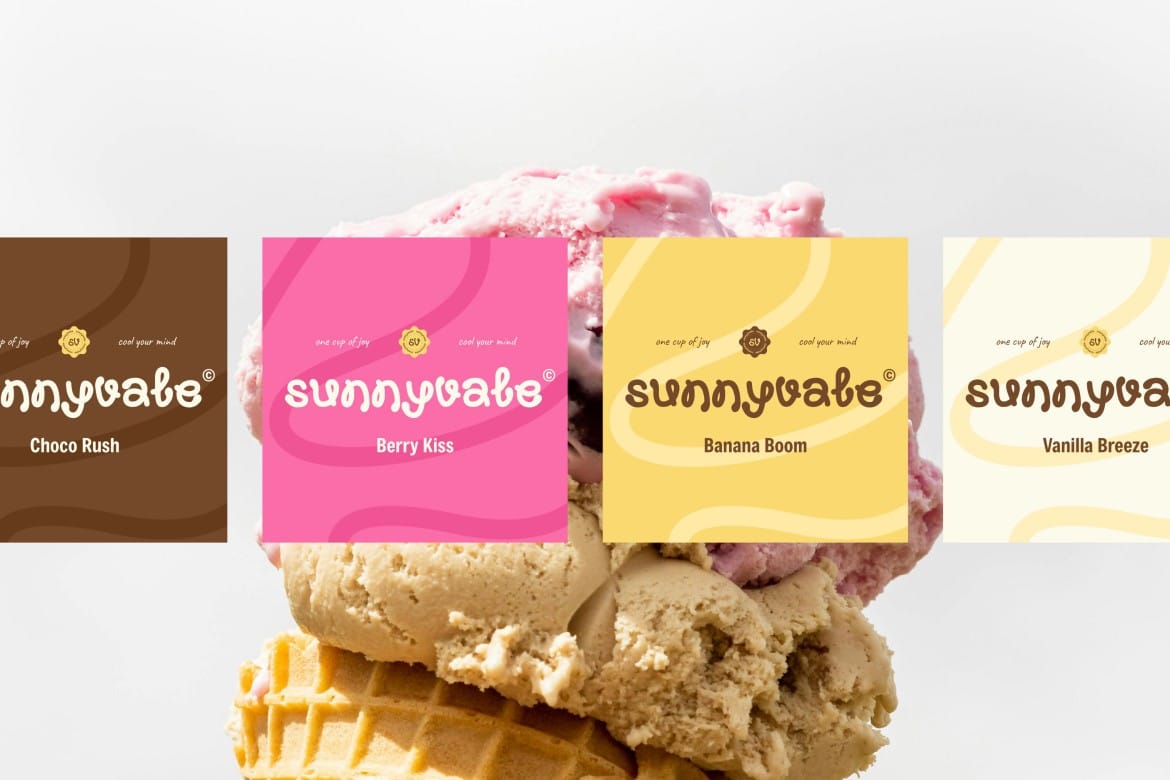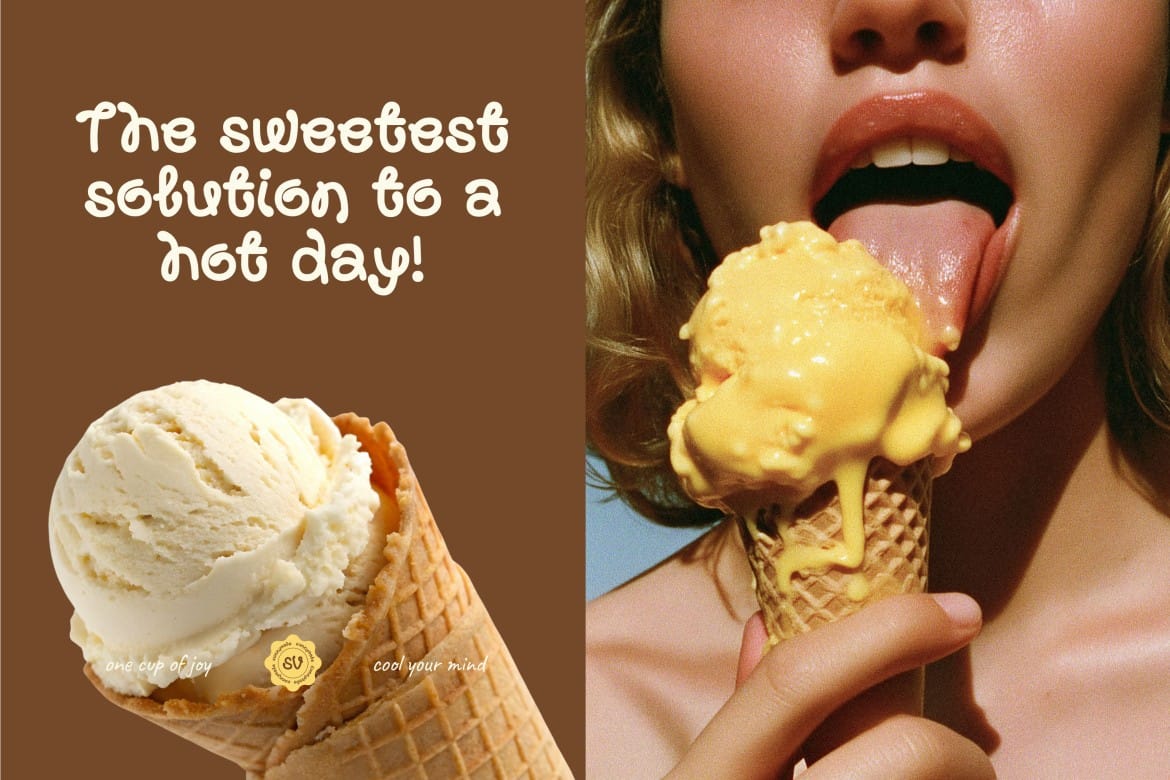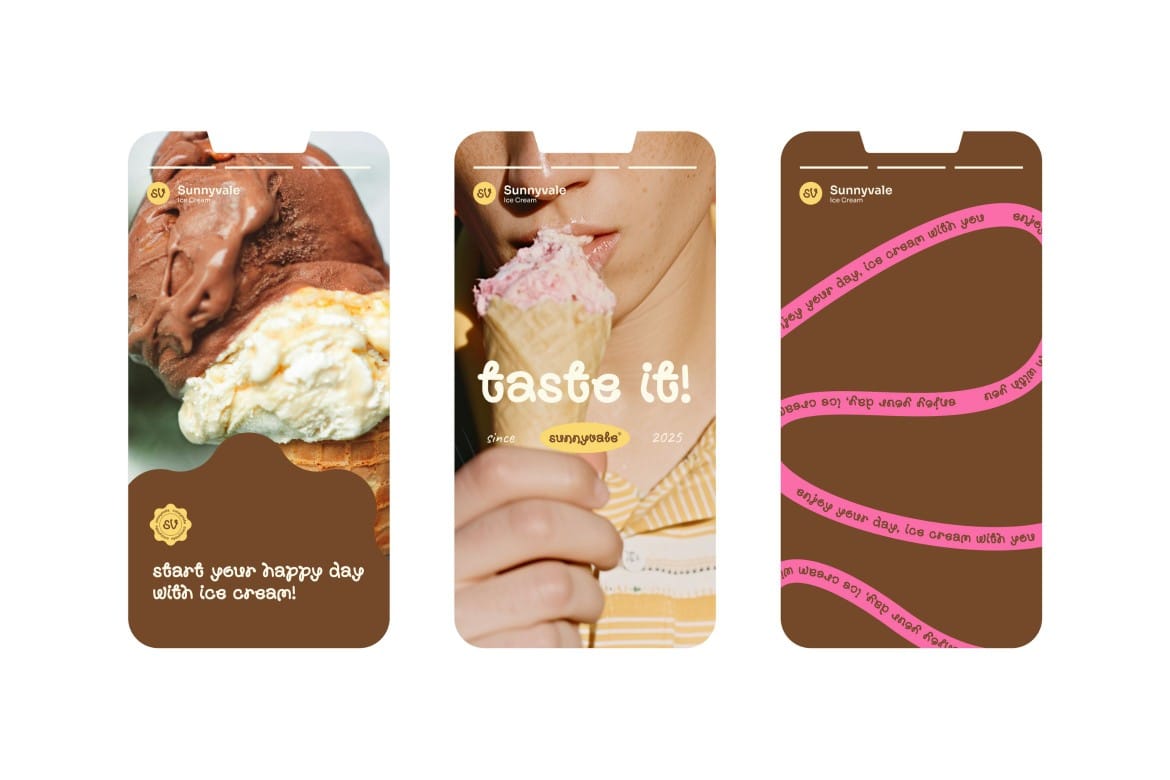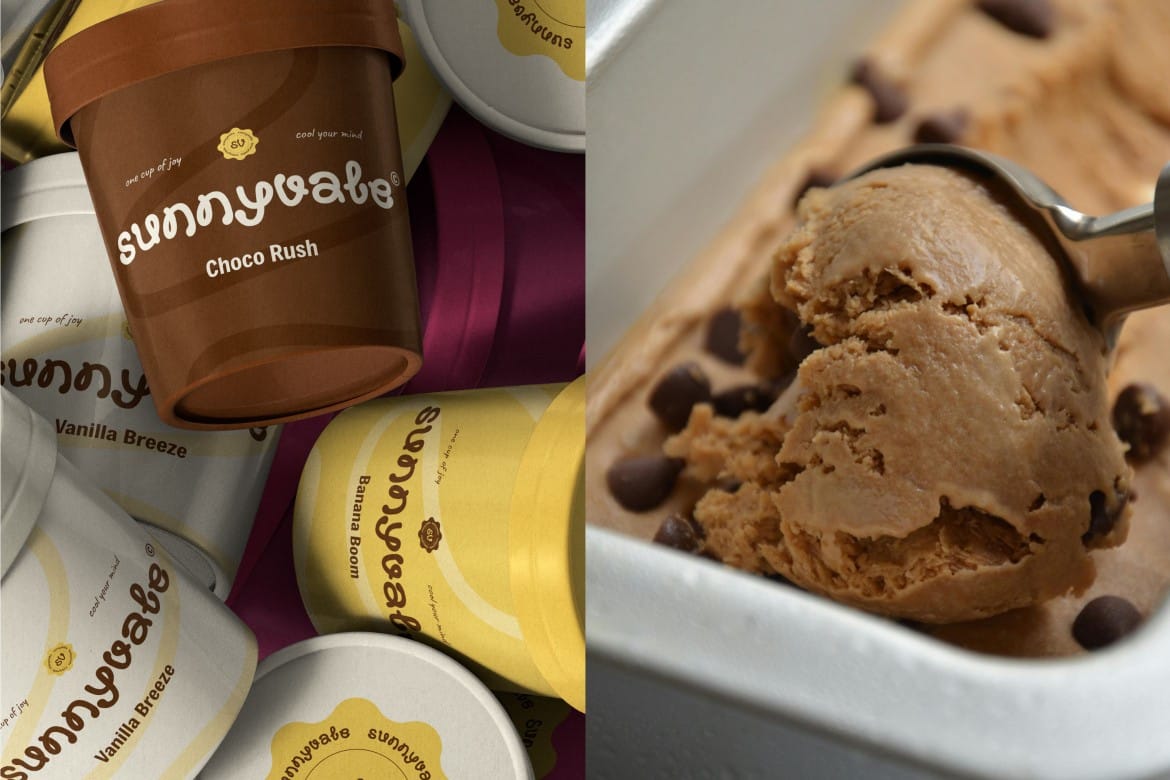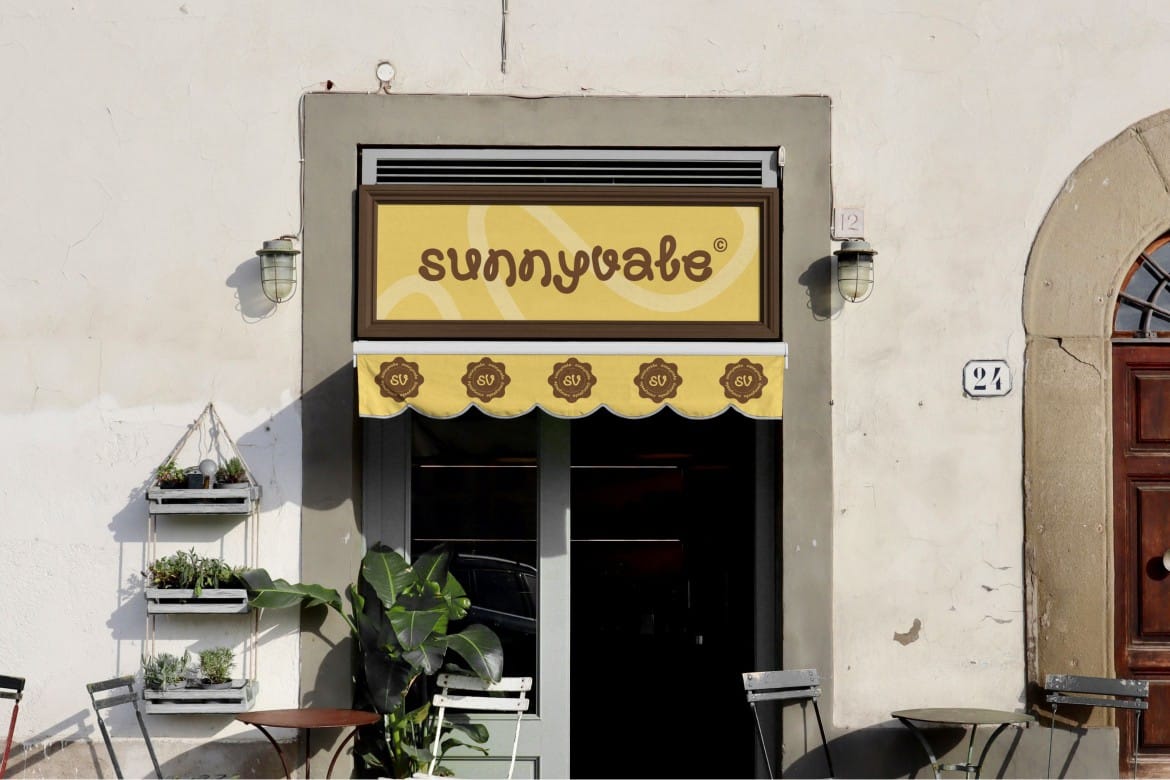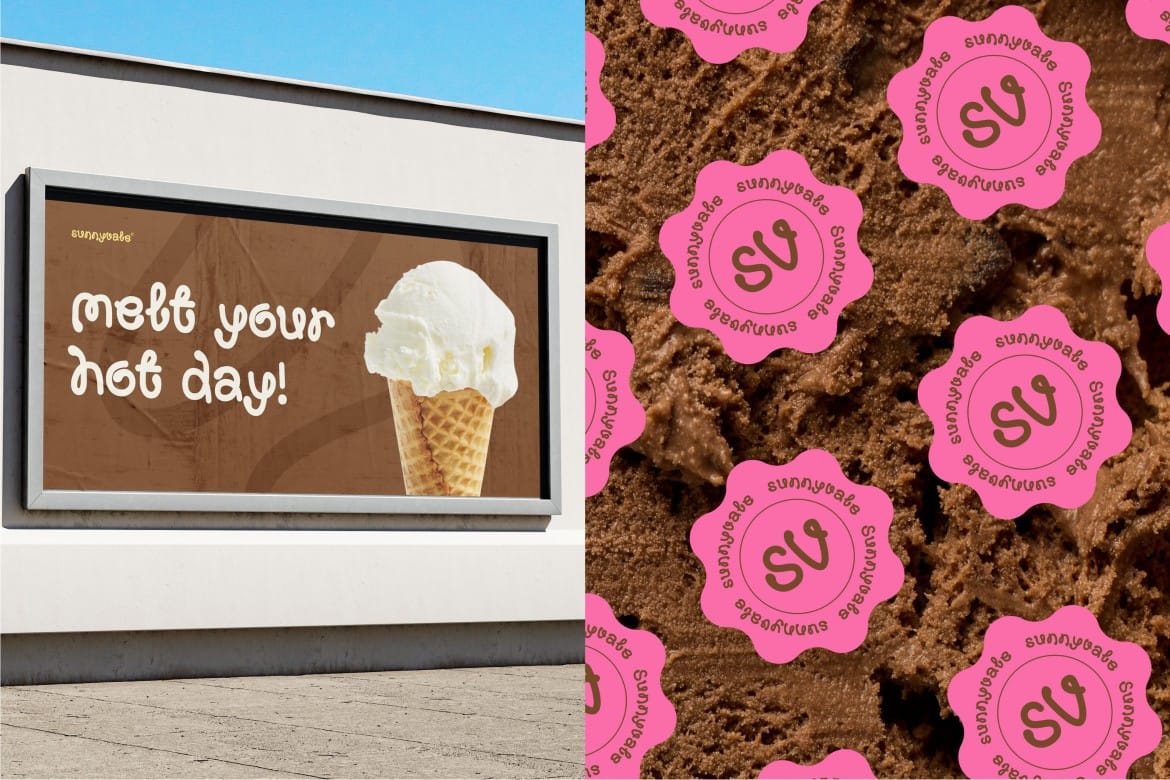
Sunnyvale - Decorative Display Font brings a playful and organic vibe, perfect for branding, packaging, posters, and social media designs. Its unique handcrafted style makes your project stand out with a retro yet modern touch, ideal for creative designers looking for bold, eye-catching typography.
Playful handwritten style with organic flowing curves
Perfect for bakery brands, lifestyle packaging, and cheerful creative projects
Smooth connected lettering that brings a warm and approachable personality